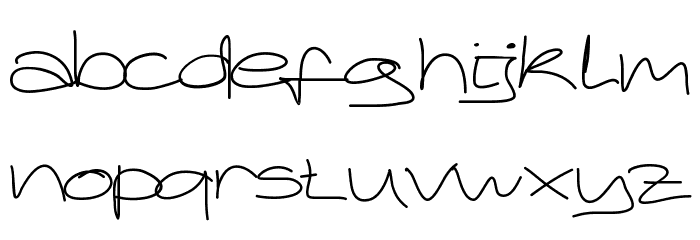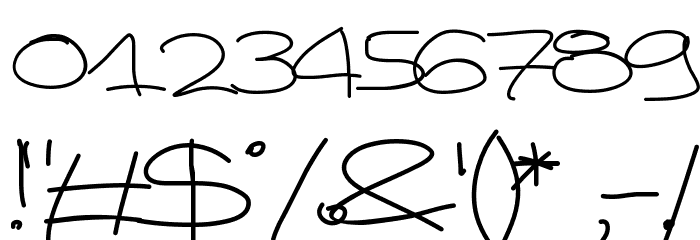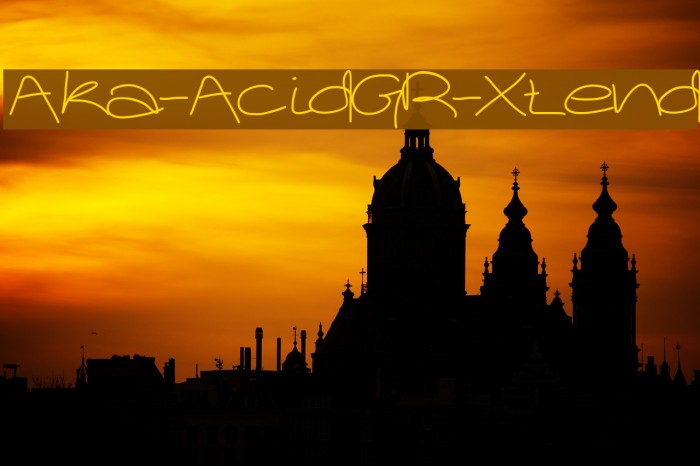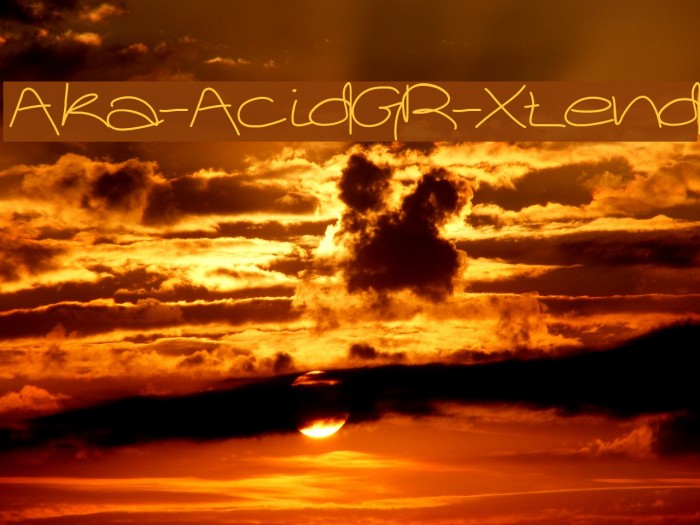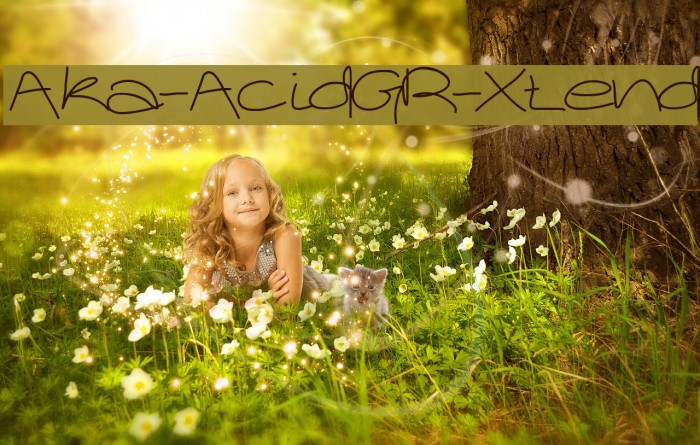
Aka-AcidGR-Xtend Font
This font features a unique, handwritten style with a playful and casual appearance. The letters are characterized by their irregular, flowing lines and varying stroke thickness, giving it a dynamic and energetic feel. The uppercase and lowercase letters maintain a consistent style, with a slightly slanted orientation that adds to its informal charm. Numbers and special characters follow the same design principles, ensuring a cohesive look across all glyphs. The font's overall aesthetic is modern and artistic, making it suitable for creative projects that require a personal touch.
A playful, handwritten font with dynamic, flowing lines and a casual style.
- Proposed Projects: Ideal for creative projects such as greeting cards, invitations, posters, and social media graphics where a personal, artistic touch is desired.
- Overall Style: Modern, Artistic
- Use Case: Logos, Headlines, Creative projects